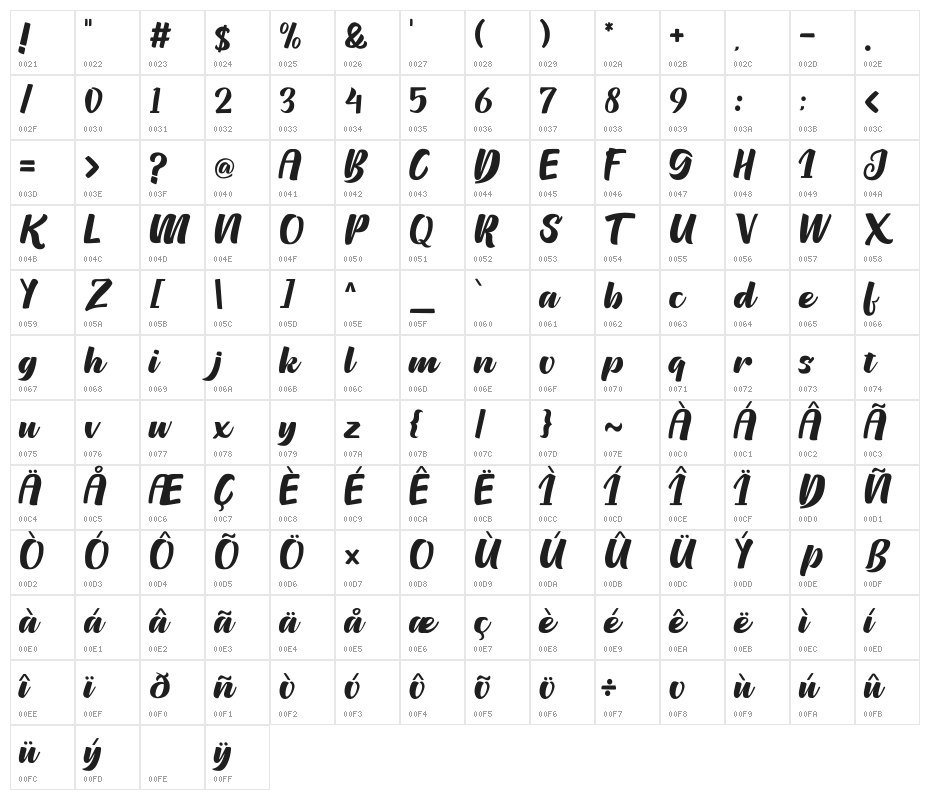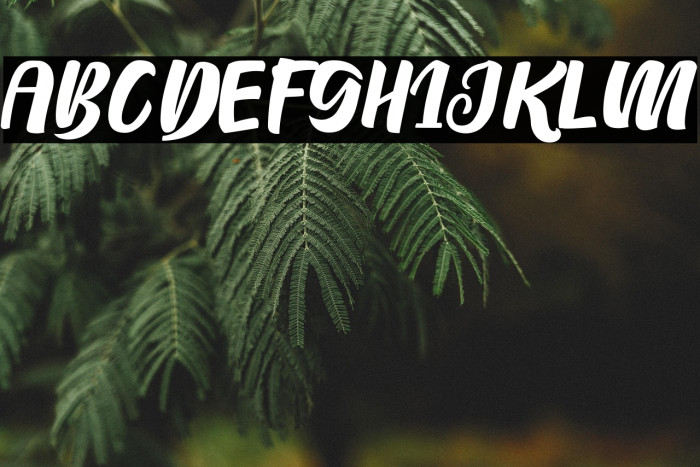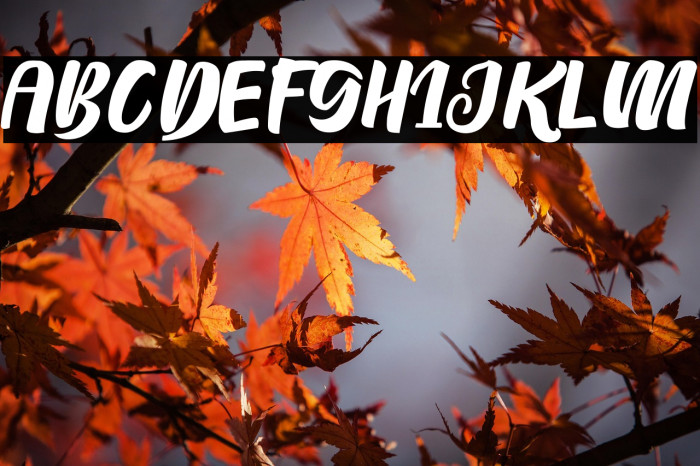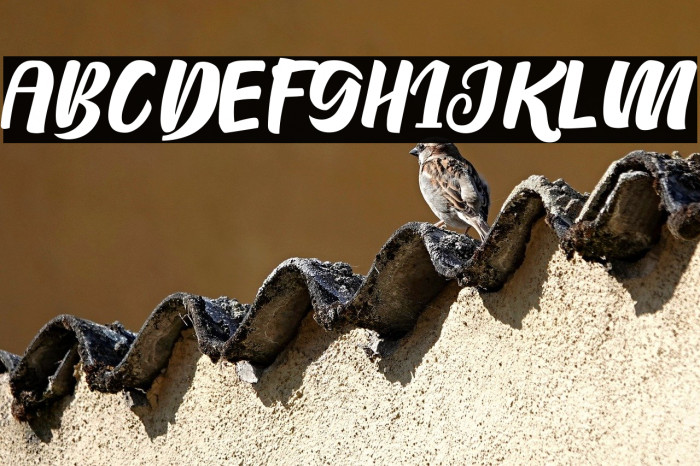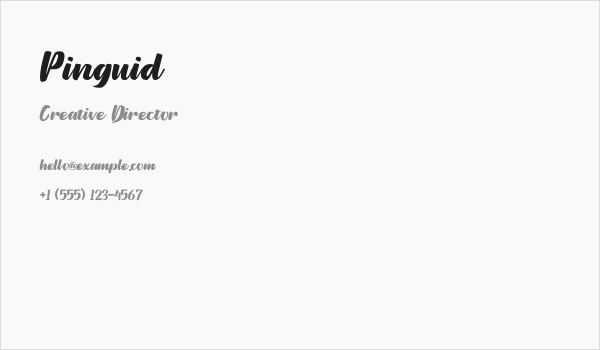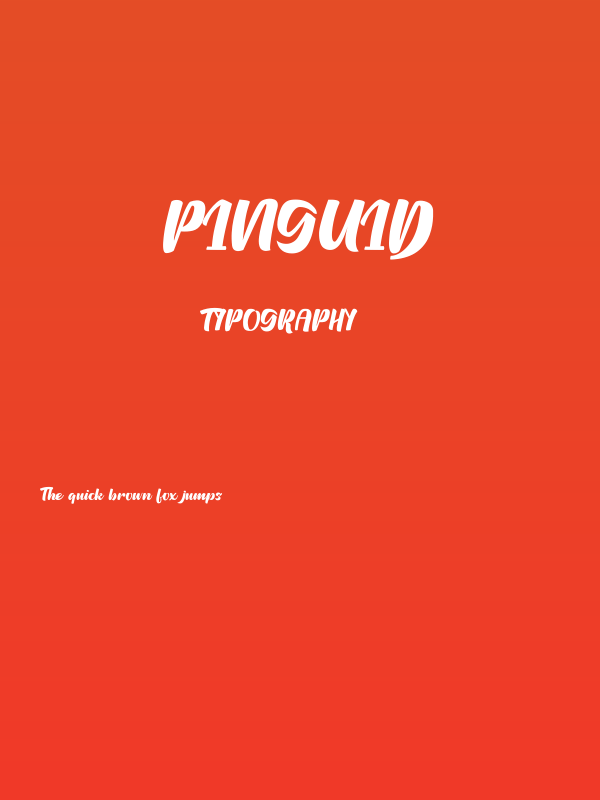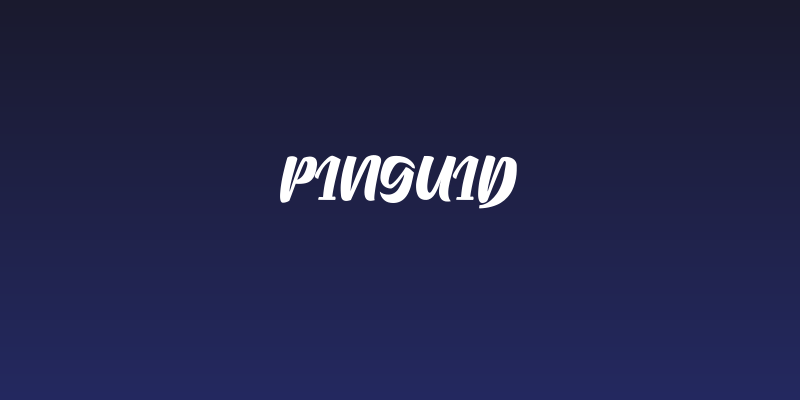
Pinguid Font
Pinguid Description
This font exhibits a bold, cursive style with a strong presence and fluid strokes. The uppercase letters are characterized by their sweeping curves and dynamic forms, while the lowercase letters maintain a consistent flow with slightly exaggerated loops and tails. The numerals are equally bold, maintaining the same fluidity and style as the alphabet. Special characters are integrated seamlessly, complementing the overall aesthetic. The font's design is both playful and assertive, making it suitable for a variety of creative applications.
| Proposed Projects | Ideal for branding, logos, headlines, and creative projects that require a bold and expressive touch. |